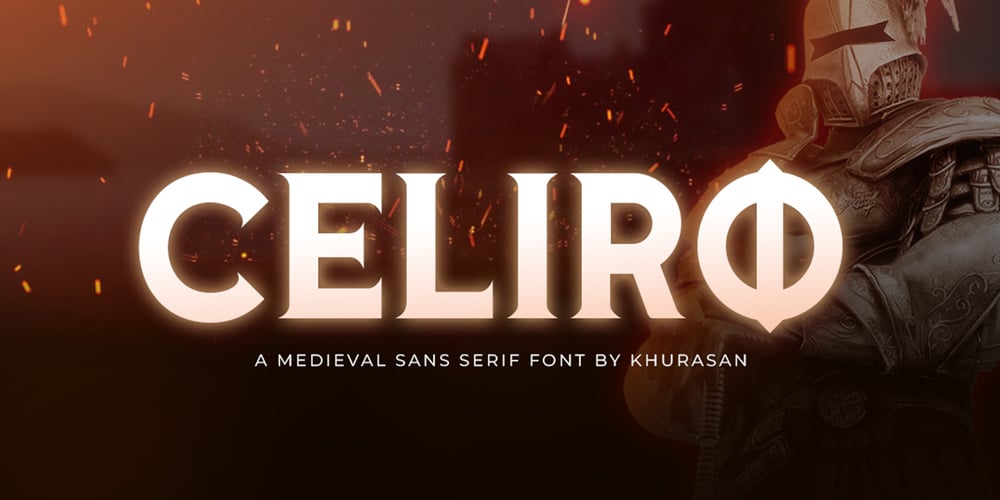
Celiro Font Family was designed by Syaf Rizal and published by Khurasan. Celiro contains 1 styles and family package options. Introducing Celiro medieval sans serif font that is very fresh and unique style handmade. Celiro Typeface is perfectly suited to logo, stationery, poster, apparel, branding, wedding invitation, card, tagline, layout design, and much more !!